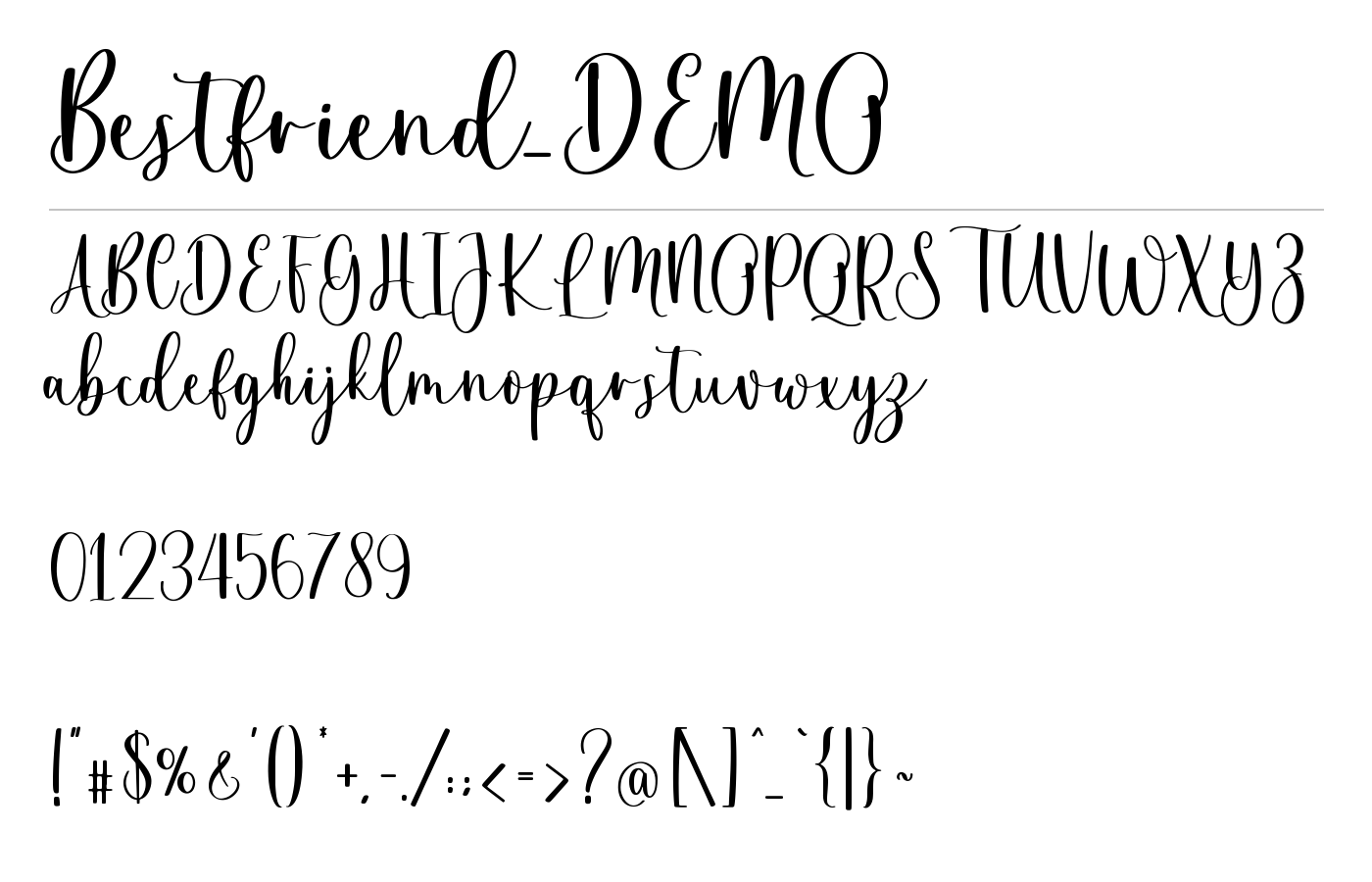
Bestfriend_DEMO is a playful, modern script font with a friendly, hand-drawn feel. It features smooth, flowing strokes with moderate contrast and elegant curves, making it perfect for creative and informal designs like invitations, branding, and social media graphics. This font’s charming, lively style adds a personal touch to headlines and decorative text, bringing warmth and personality to any project.
Bestfriend_DEMO Font
About Bestfriend_DEMO Font